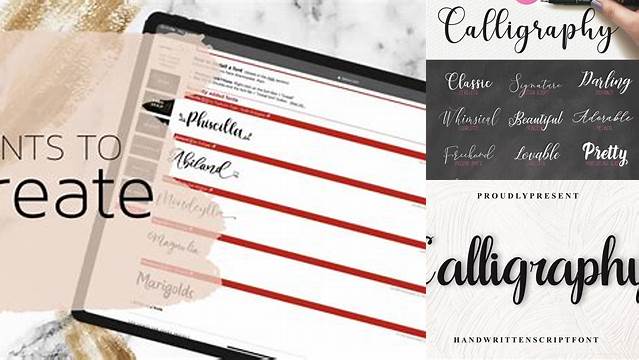
Free Calligraphy Fonts For Procreate: Your Ultimate Guide
Are you guys ready to dive into the awesome world of digital calligraphy? Specifically, we're talking about how to snag some calligraphy fonts for free download and use them in Procreate. It's an amazing combo, trust me! Procreate is one of the best apps for digital art on the iPad. The app's versatility is why so many artists and designers love it. This article is your guide to finding, installing, and rocking those fonts like a pro. We'll be covering where to find free calligraphy fonts, how to get them into Procreate, and even some tips and tricks to make your lettering really pop. So, whether you're a seasoned artist or just starting out, stick around because you're in for a treat. Let's get started on this creative adventure together. Finding the right calligraphy font can sometimes feel like finding a needle in a haystack, but don’t worry. I'm here to help you out with finding the best free fonts out there. Procreate is a fantastic platform for digital art, but the magic truly happens when you combine it with stunning calligraphy fonts.
Why Calligraphy Fonts in Procreate Are a Game Changer
First things first, why should you even care about calligraphy fonts in Procreate? Well, for starters, they can completely transform your artwork. Using calligraphy fonts adds a touch of elegance and personalization that can be hard to achieve with other tools. Think about it: you're not just typing words; you're crafting a visual statement. Calligraphy fonts are ideal for everything from creating beautiful social media graphics and designing invitations to adding a unique flair to your illustrations. They give your work a handmade feel, even if it's created digitally. The impact of a well-chosen calligraphy font is huge. It can set the tone of your project, whether you're aiming for something romantic, modern, or playful. Using Procreate makes it even better. The app's features, such as pressure sensitivity and the ability to customize brushes, let you add your personal touch to the fonts. This helps you create truly unique designs. Calligraphy fonts aren't just about pretty letters. They're about telling a story, conveying emotions, and engaging your audience in a visually exciting way. Digital calligraphy opens up a world of possibilities, making your artwork more expressive and engaging. Let's explore the different ways you can use these fonts. I will walk you through the process, so you don't need to feel overwhelmed. Get ready to level up your Procreate game and impress everyone with your lettering skills. So let's find some incredible free fonts to enhance your creative projects. Let's make sure that your digital art stands out and leaves a lasting impression.
- Download the Fonts: Once you find a font you love, download the font files. These are usually in .OTF or .TTF format. Save them to your iPad. Always keep your font files organized for easy access. I recommend a folder system to categorize your fonts to make sure your projects are easy to find.